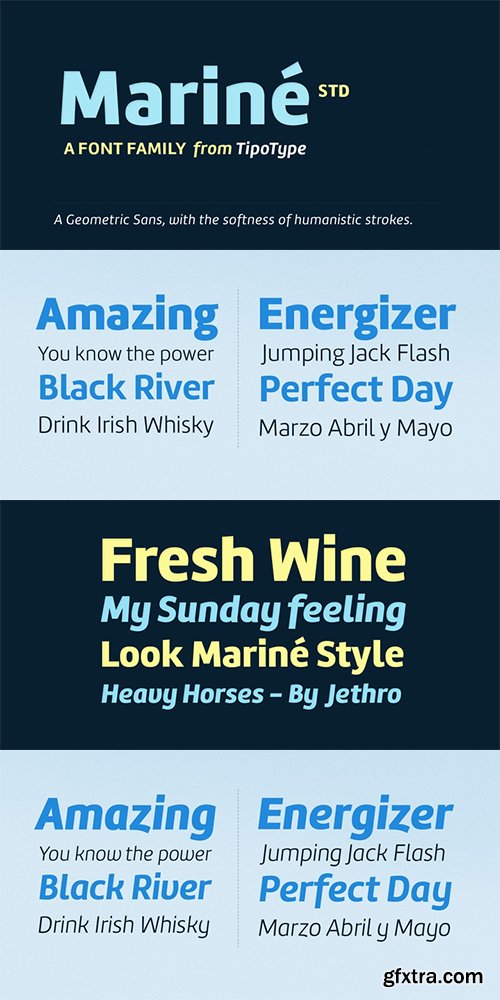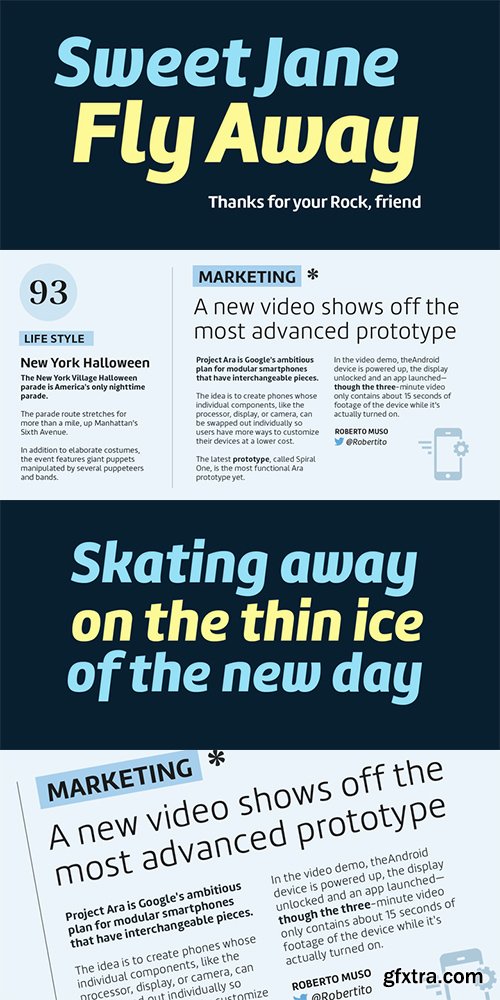
Marine STD Font Family
Mariné STD is a geometric sans but with the softness of humanistic strokes. It’s mild contrast and multiple different styles allow Mariné to work well as both a text and display font